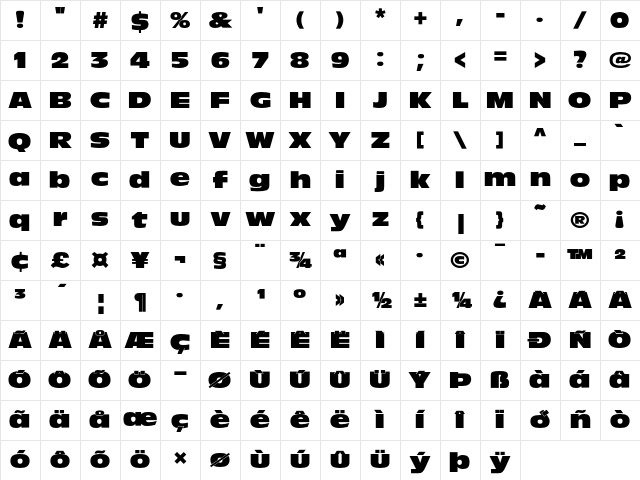
Antique Olive Nord P Regular
Design Context for Antique Olive Nord P
Antique Olive Nord P wears its vintage influences proudly, with letterforms that recall mid-century signage, classic packaging, and nostalgia-driven design.
Font Pairing: Combine Antique Olive Nord P with a simple slab or neutral sans - period-accurate companions reinforce the vintage feel without competing for attention.
Pro Tip: Lean into Antique Olive Nord P's period character by pairing it with aged paper textures, muted colour palettes, and vintage illustration styles.